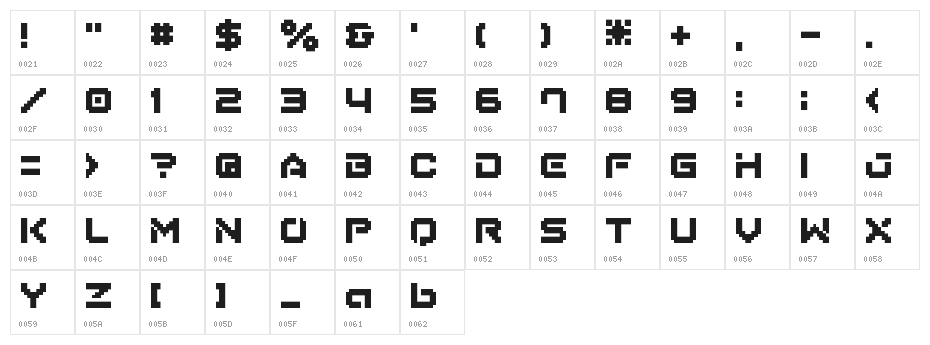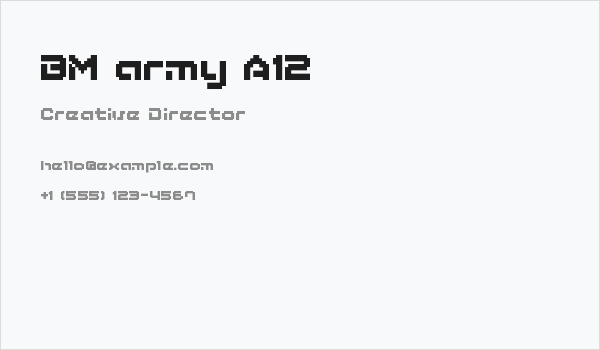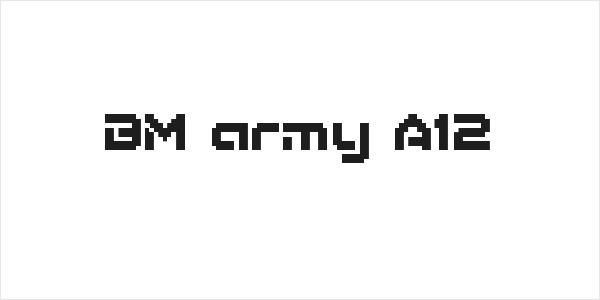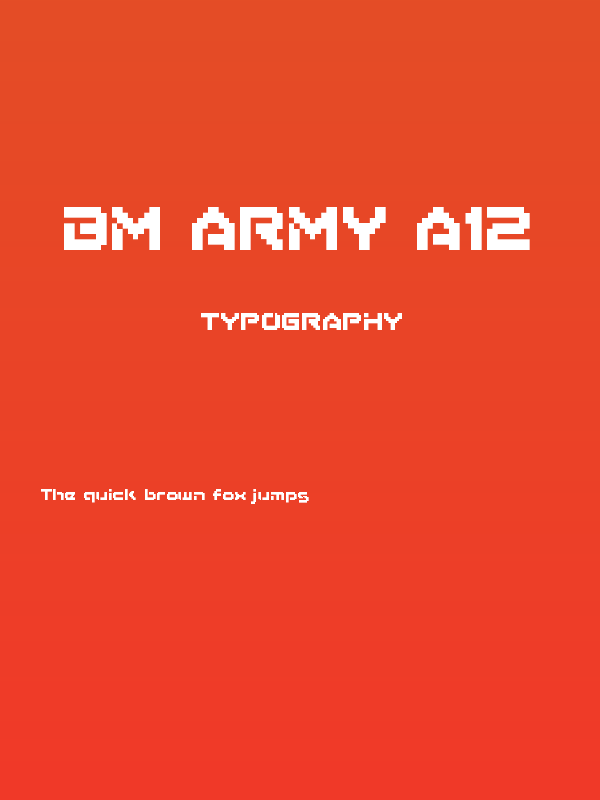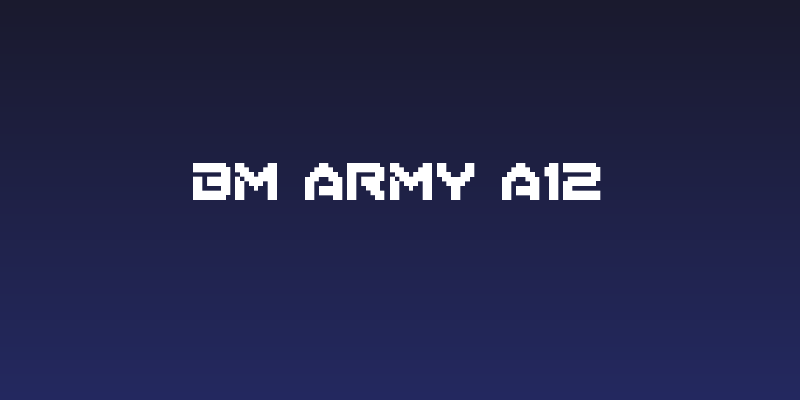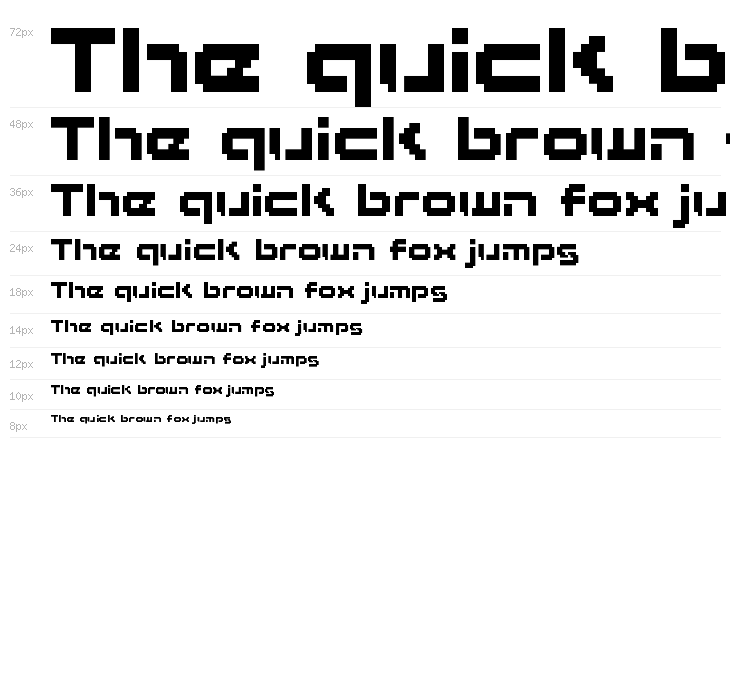
BM army A12 Font
BM army A12 Description
This font features a bold, geometric design with a pixelated, block-like appearance. Each character is constructed with sharp, angular edges, giving it a digital, retro aesthetic reminiscent of early computer graphics or video games. The uppercase and lowercase letters maintain a consistent height and width, contributing to a uniform and structured look. The numerals and special characters follow the same design principles, ensuring a cohesive style throughout. This font is highly legible and distinct, making it suitable for attention-grabbing headlines or digital-themed projects.
| Overall Style | Retro, Digital |
| Use Case | Headlines, Logos, Digital Art |
| Proposed Projects | Ideal for video game graphics, tech-themed posters, digital art projects, or any design requiring a retro digital aesthetic. |